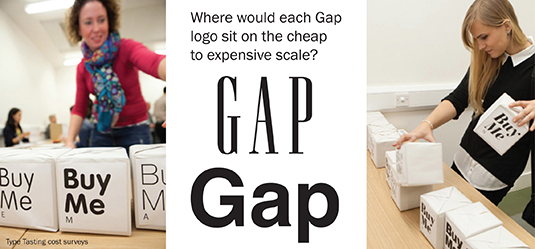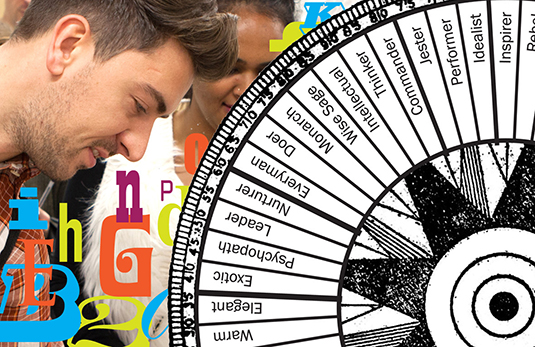
What's your type: workshop explores the personalities of typefaces
Typography is demystified in one-hour workshops that use games to reveal font personalities.
To the layman, the world of typography can seem like an intimidating place. With thousands of different forms to choose from, ranging from retro fonts to cursive fonts, each with their own uses and associations, choosing the right one is an art form in itself.
In an effort to make typography more fun and accessible, the London Design Festival is hosting an event called What's Your Type? , featuring a number of workshops that use games and research data to demystify different type sets, as well as teaching people about their uses.
The one-hour sessions involve experiments and demonstrations that explore the different personalities of fonts. Complete with a Font Selfie machine, visitors can generate their own type personality analysis.
Attendees can also take part in Type Tasting surveys. These involve compiling 'tasting notes' that you can take away and use in the future to help inform your own typography-based projects.
The workshops are based around hard data rather than relying on the opinions of designers, so you'll soon be able to recognise what factors make a font look cheap, expensive, glam, or angry, This should prove to be useful for students down the line when it comes to reasoning their creative decisions to difficult clients.